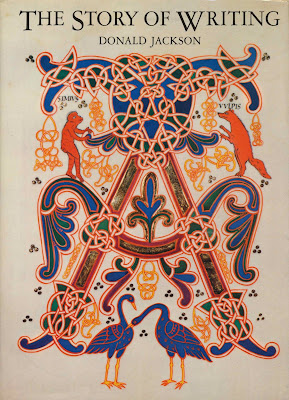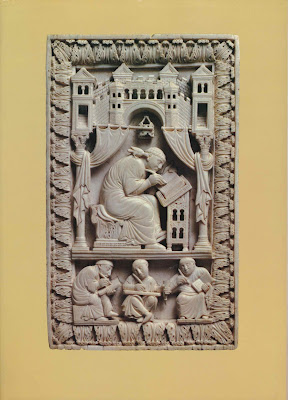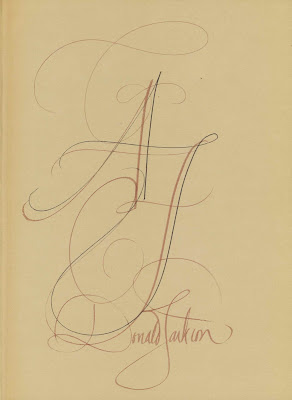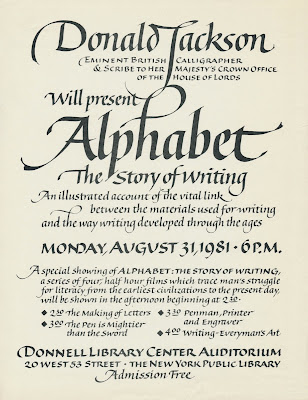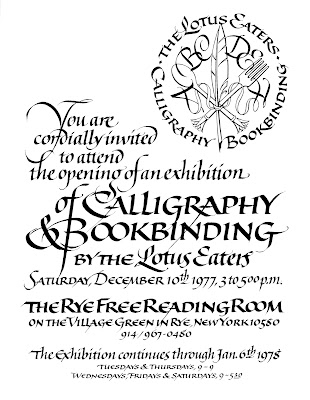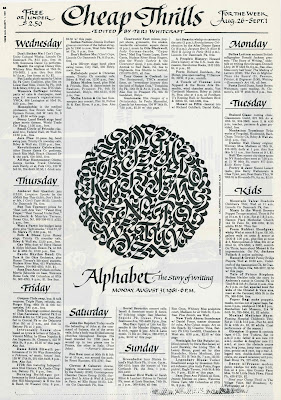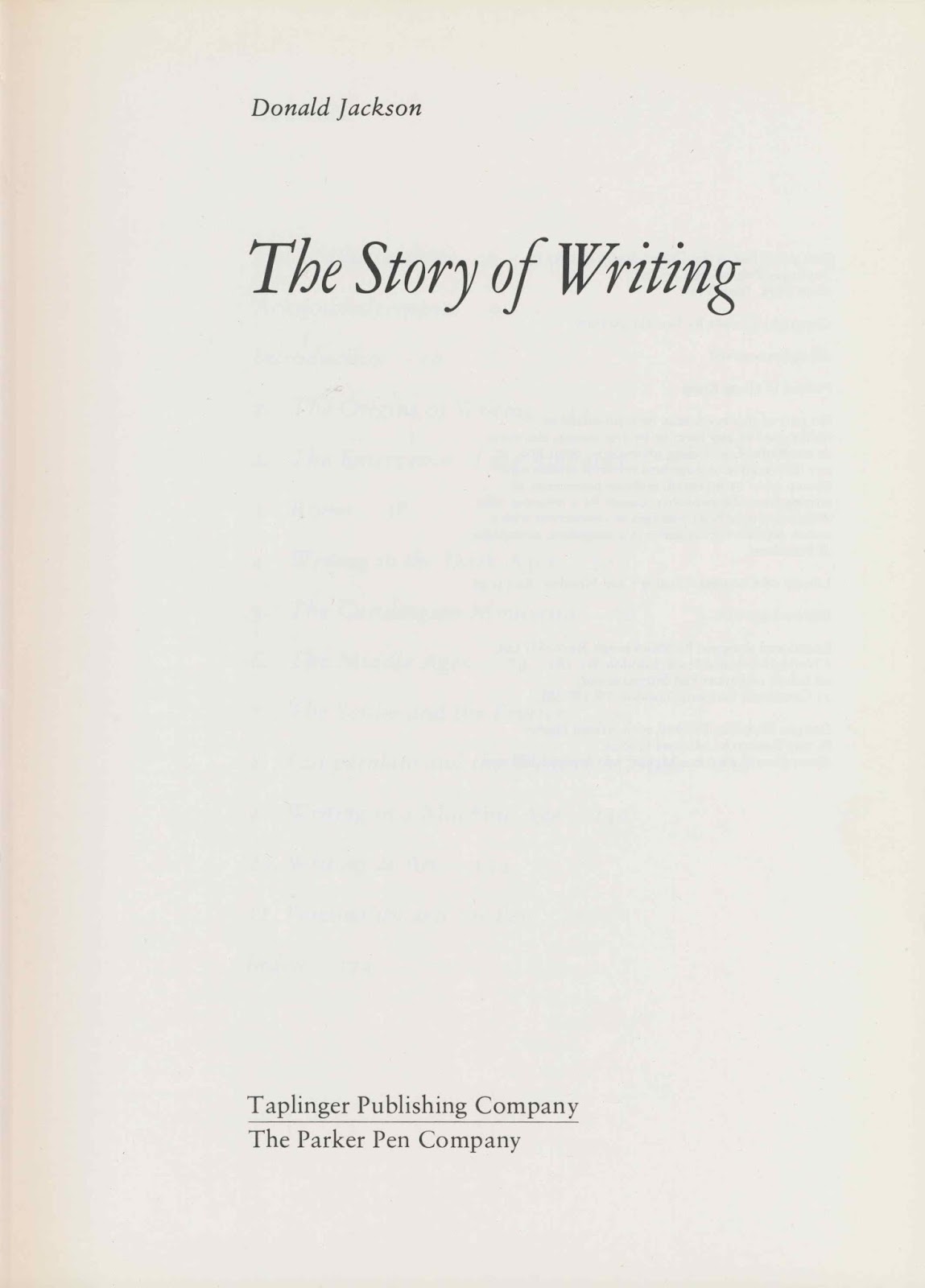
Calligraphy: Donald Jackson’s The Story of Writing
The Story of Writing
Donald Jackson
Taplinger Publishing Company, 1981
Dust Jacket Front
Dust Jacket Back
Front Endpaper
Title Page
Contents
Alice Koeth created the August 1981 flyer for the Donald Jackson event at the Donnell Library in New York City. After Jackson made his presentation, he signed copies of his book, The Story of Writing, on the front endpaper. Several people were waiting to have their book signed when the library closed at 8 o’clock. Outside the library, the remaining people assembled in the parking lot where Jackson commandeered the parking attendant’s booth and finished signing the books. I gave him my full name but he wrote my initials, A J.